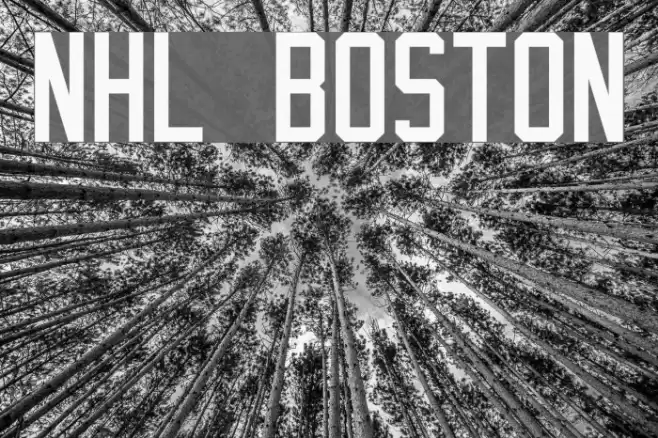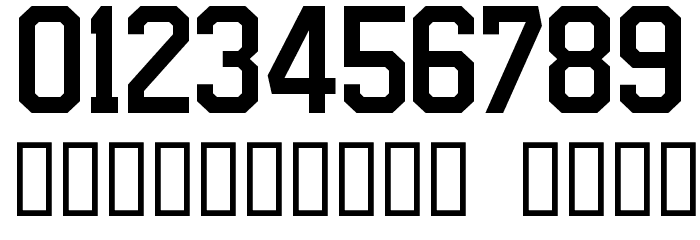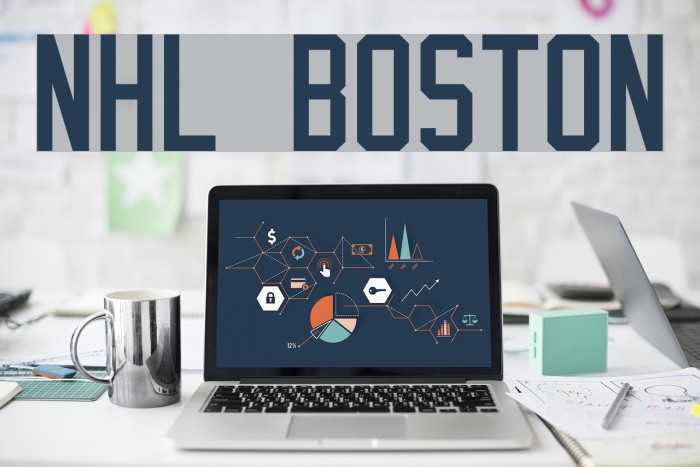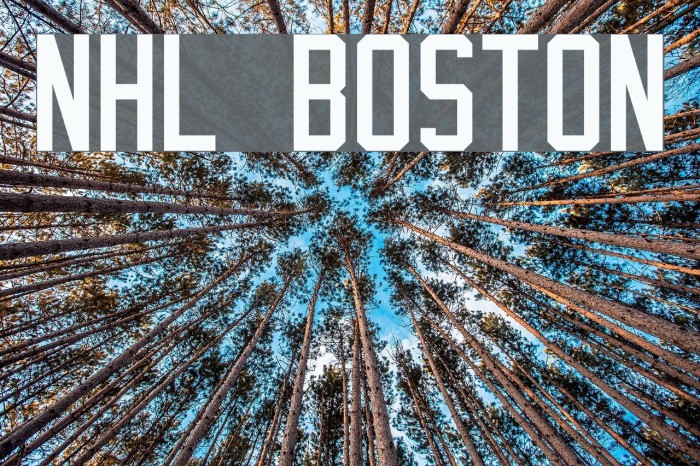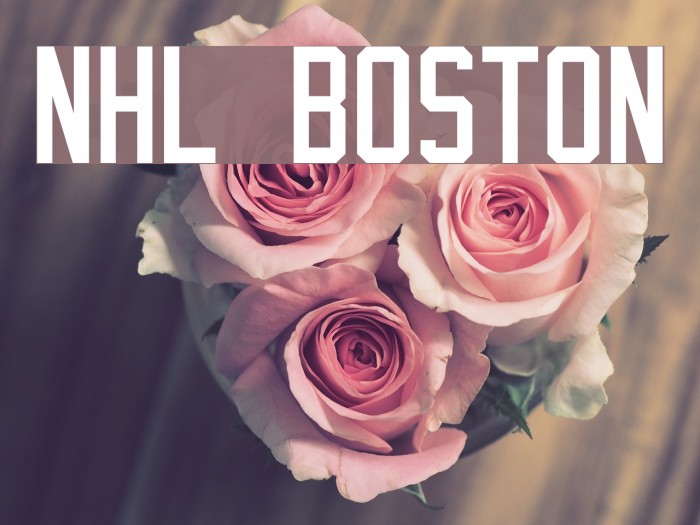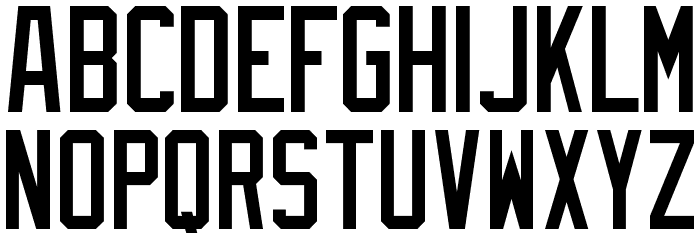
NHL Boston Font
NHL Boston Description
This font features a bold, geometric design with strong, angular lines and a modern aesthetic. The uppercase letters are uniform in height, with a consistent stroke width that gives a sense of solidity and strength. The numbers follow the same design principles, ensuring a cohesive look across all characters. The font's style is reminiscent of sports or team branding, making it ideal for projects that require a bold and impactful visual presence. The lack of special characters suggests a focus on alphanumeric use, emphasizing clarity and readability.
A bold, geometric font with strong, angular lines, ideal for sports branding from Uncategorized fonts.
- Proposed Projects: Sports team logos, event posters, merchandise branding, and signage.
- Use Case: Logos, Headlines